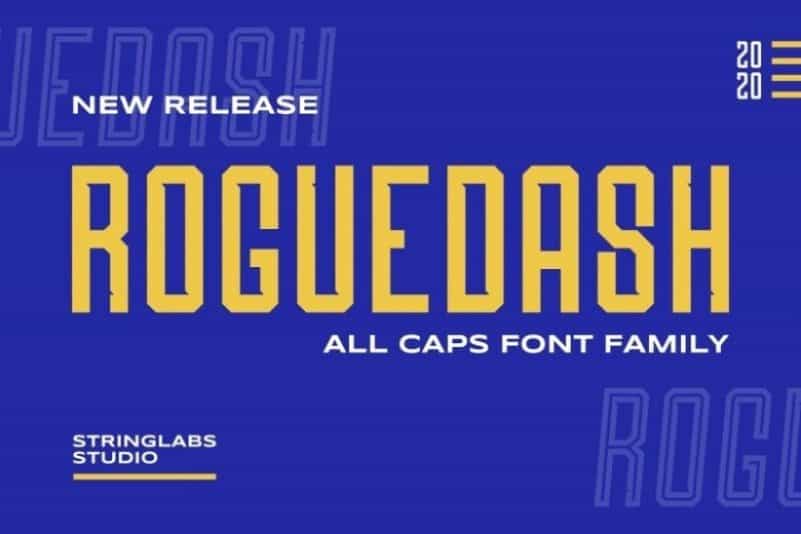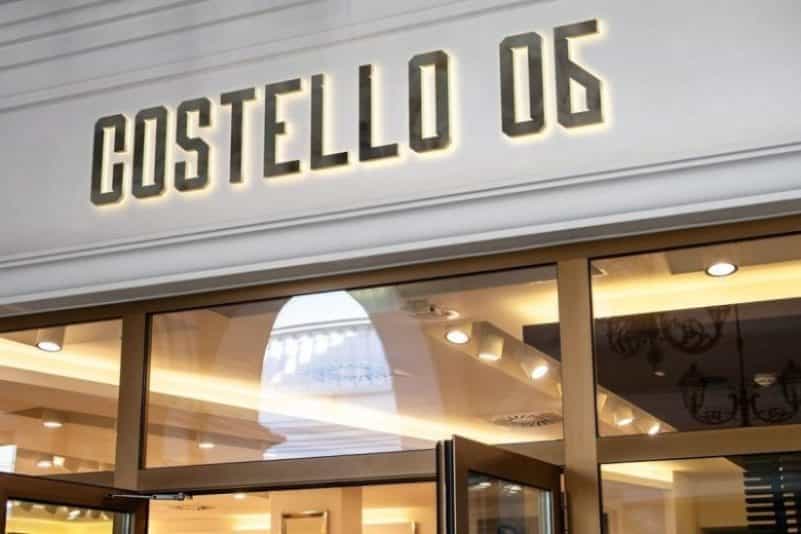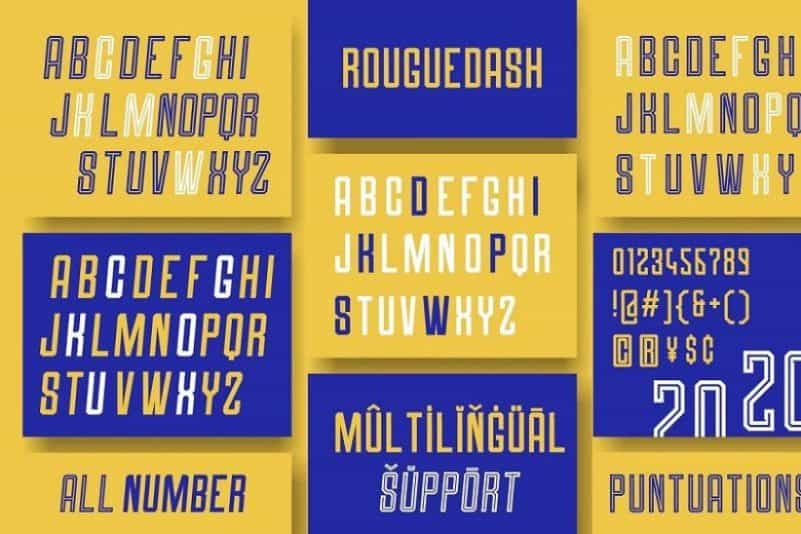
Discover Roguedash Stylish Sans Font Family, part of the Sans Serif Display collection—a versatile and unique font perfect for adding a personal touch to your projects. Download it for free and enjoy crafting designs with style, from invitations to social media posts. This font is available exclusively for personal use, giving you the freedom to create without limits. Unlock your creativity with Roguedash Stylish Sans Font Family today!
Roguedash is a stylish sans serif font family. This font is suggested for people who prefer the bold appearance of text. Furthermore, this font is Sporty fashionable, Futuristic, Modern, Elegant Innovative and it is a Unique Concept.